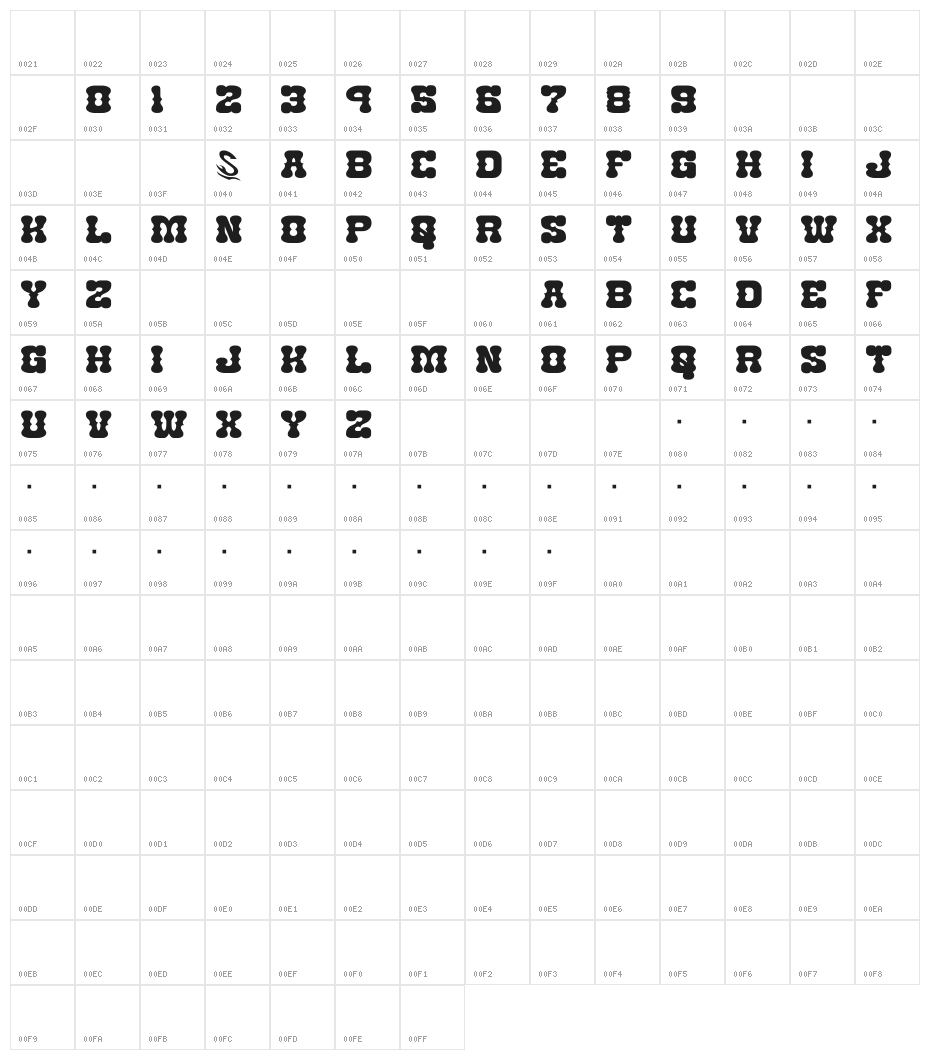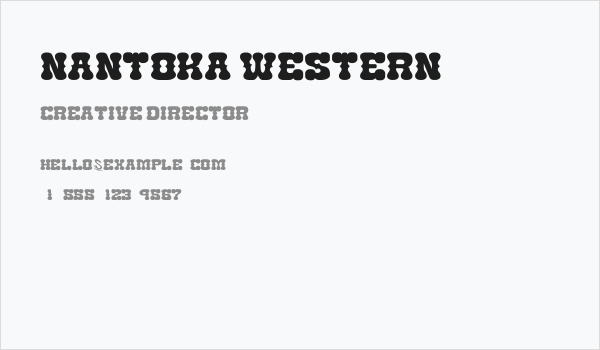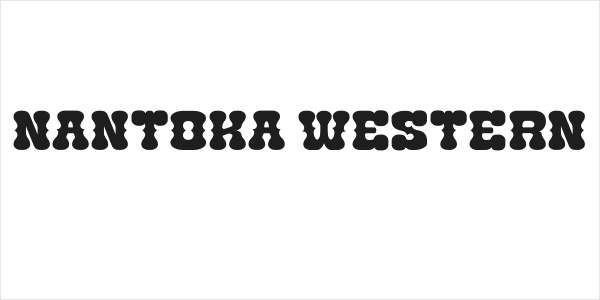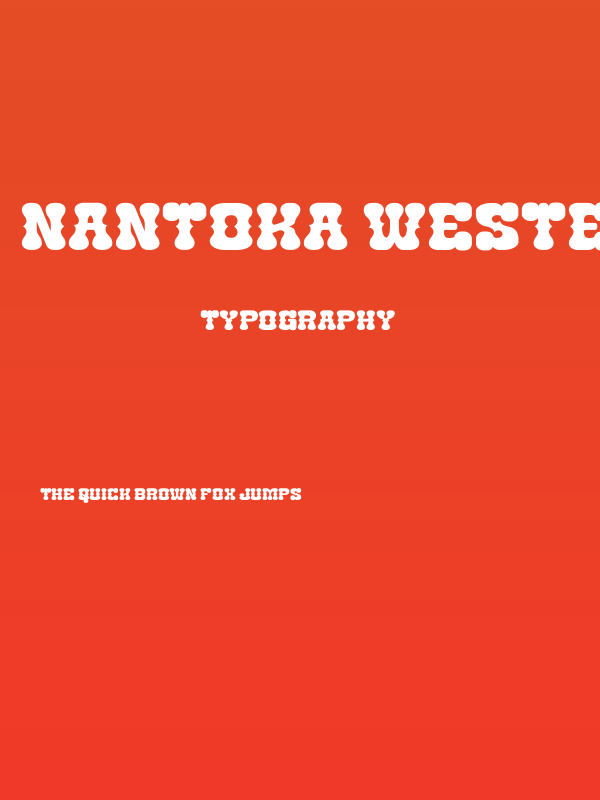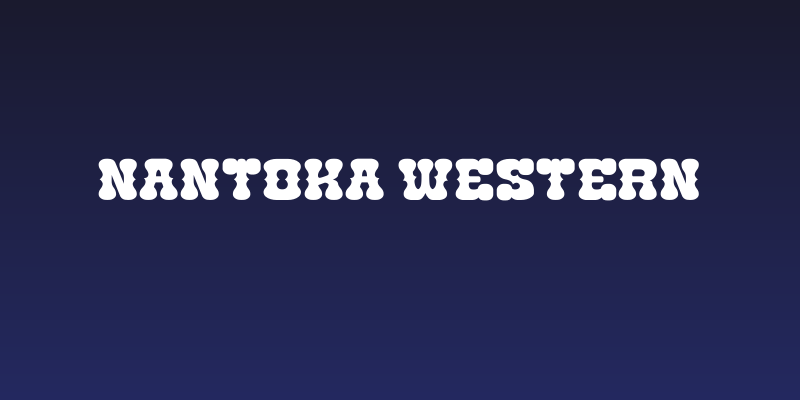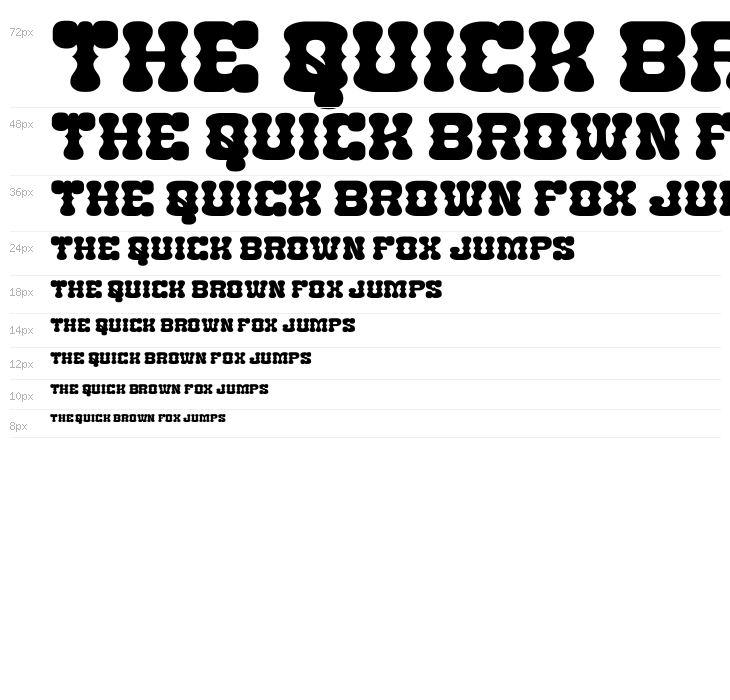
Nantoka Western Font
Nantoka Western Description
This font exudes a bold and playful character with its thick, rounded strokes and unique, bubbly appearance. The letters are heavily stylized, featuring exaggerated curves and a consistent weight throughout, which gives it a distinctive, eye-catching look. The design is reminiscent of Western-style fonts but with a modern twist, making it suitable for creative and fun applications. Its boldness ensures high visibility, making it ideal for headlines and display purposes. The uniformity in stroke thickness and the rounded edges contribute to its approachable and friendly aesthetic.
| Proposed Projects | Ideal for posters, branding, children's books, and any project requiring a fun, eye-catching typeface. |